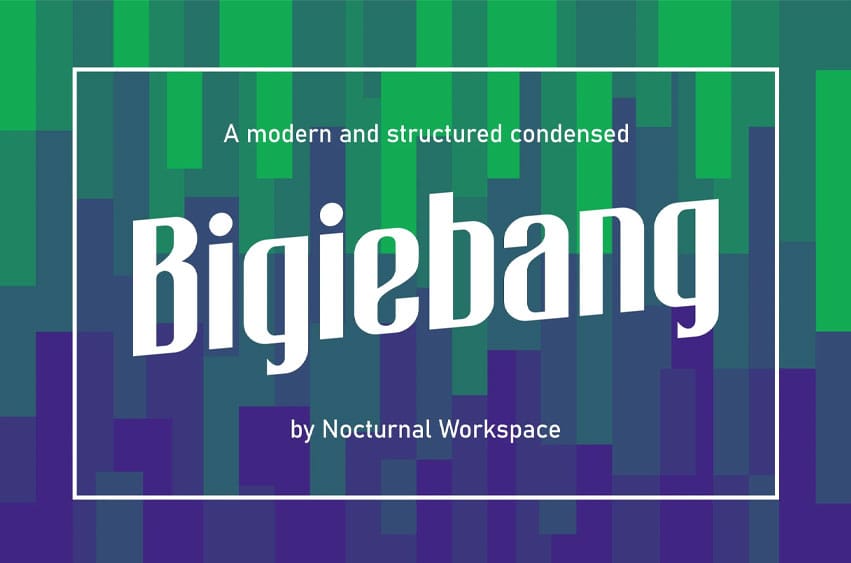
Biggie Bang Font Condensed is a suitable typeface for various purposes, such as logotypes, signage, labels, posters, drop caps, titles, letterheads, book covers, and more.